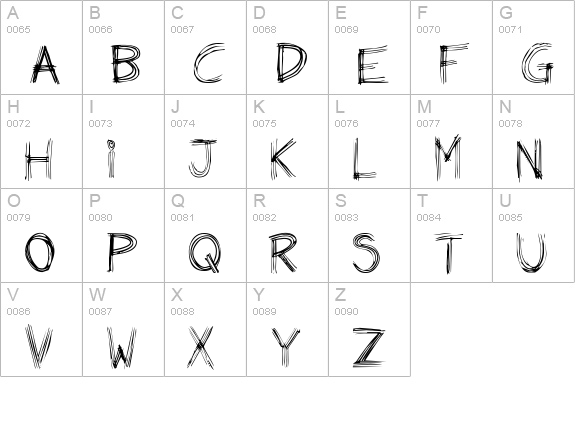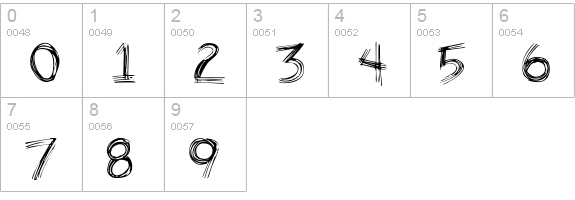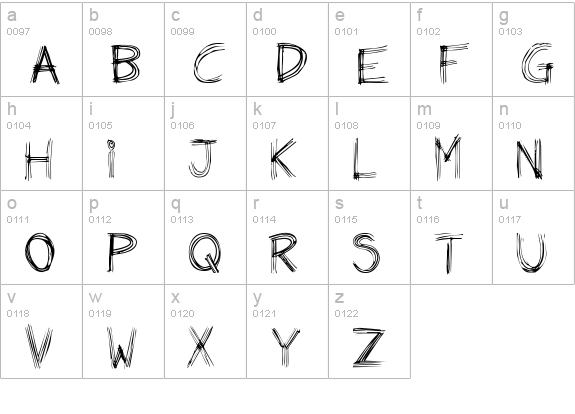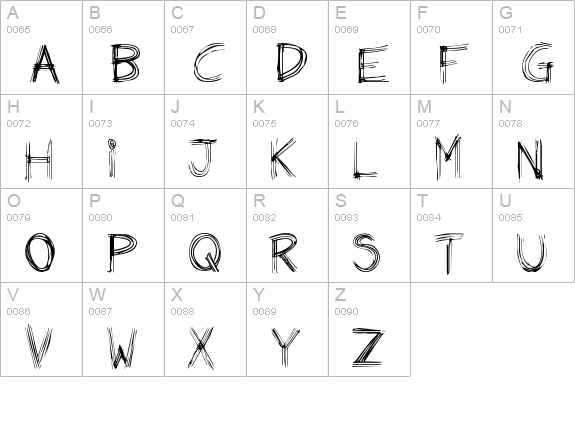
Weirdo Font Details
Introducing Weirdo font, a captivating and unconventional typeface that pushes the boundaries of design. This font is the perfect choice for anyone who wants to add a touch of quirkiness and uniqueness to their projects. Weirdo font is a true embodiment of creativity and individuality, with its unusual and irregular letterforms that stand out from the crowd. Each character has been meticulously crafted to create a visually striking and thought-provoking experience for the reader. With its playful and eccentric style, Weirdo font is suitable for a wide range of creative applications. Whether you're designing a poster, creating a logo, or crafting a social media post, this font will instantly grab attention and leave a lasting impression. Weirdo font is not only visually captivating, but it is also incredibly versatile. It can be easily customized to suit your needs, allowing you to experiment with different sizes, colors, and effects to achieve the desired look and feel. The best part? Weirdo font is completely free! That's right, you can download this remarkable typeface at FontsMarket.com, the premier destination for high-quality fonts. Whether you're a professional designer or a hobbyist, this free font is an invaluable addition to your creative arsenal. Don't miss out on the opportunity to unleash your creativity with Weirdo font. Download it today and let your imagination run wild!